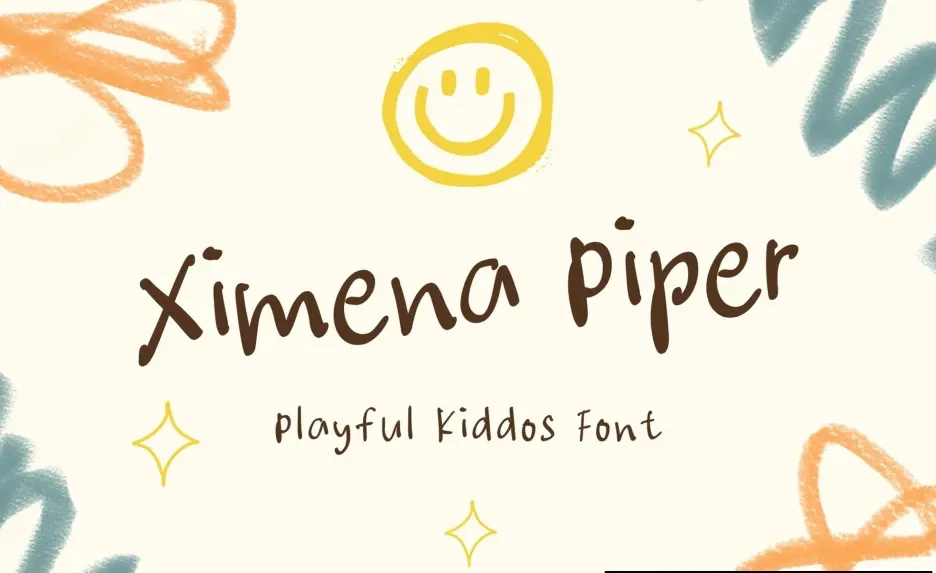
Ximena Piper – Playful Kiddos Font 9Newn6X
Ximena Piper is a delightful and playful font designed specifically for children’s projects. Its whimsical style and rounded edges make it perfect for creating engaging designs that appeal to kids and parents alike.
• Playful and fun design
• Multiple weights for versatile use
This font is ideal for branding, children’s books, educational materials, posters, and any project that requires a touch of fun and creativity.